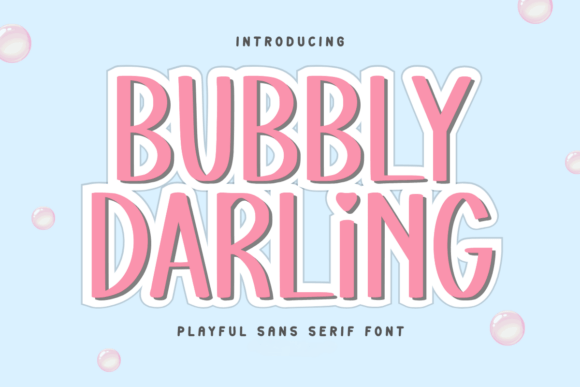
The Bubbly Darling Font: A Sweet Addition to Your Design Arsenal
I’ll never forget the time I was working on a craft project for my niece’s birthday, and I just couldn’t find the perfect font to match the playful vibe I was going for. The project was a set of custom stickers and coloring pages, and I wanted a font that was both fun and easy to read. That’s when I stumbled upon the Bubbly Darling font, and it instantly became my go-to for all things cute and crafty.
So, what makes Bubbly Darling so special? Let’s dive into the good stuff! 😊
• ✨ Cute and playful: Bubbly Darling has a soft, friendly, and natural look that’s perfect for craft projects, planners, stickers, and more.
• ✅ Easy to read: The simple strokes and smooth curves make it a breeze to read, even for kids.
• ✅ Versatile: This font works beautifully for quotes, greeting cards, kids’ labels, coloring pages, worksheets, bullet journals, scrapbooks, and playful graphic projects.
Now, I’m not going to sugarcoat it – every font has its quirks. Here are a few things to keep in mind:
• 🤔 Limited formal use: Bubbly Darling is a highly informal font, so it’s not the best choice for formal projects or professional designs.
• ⚠️ Not ideal for long blocks of text: While it’s easy to read, Bubbly Darling is best used in short bursts – it’s not designed for lengthy paragraphs.
The Story Behind Bubbly Darling
Bubbly Darling was designed with one goal in mind: to create a font that’s both fun and accessible. The designer, a self-proclaimed crafty mom, wanted to create a font that would make her fellow crafting enthusiasts smile. With its soft, rounded edges and playful feel, Bubbly Darling is the perfect addition to any craft project.
Is Bubbly Darling suitable for body text? While it’s easy to read, Bubbly Darling is best used in short bursts – it’s not ideal for long blocks of text.